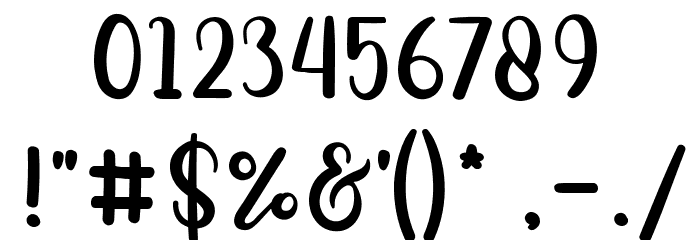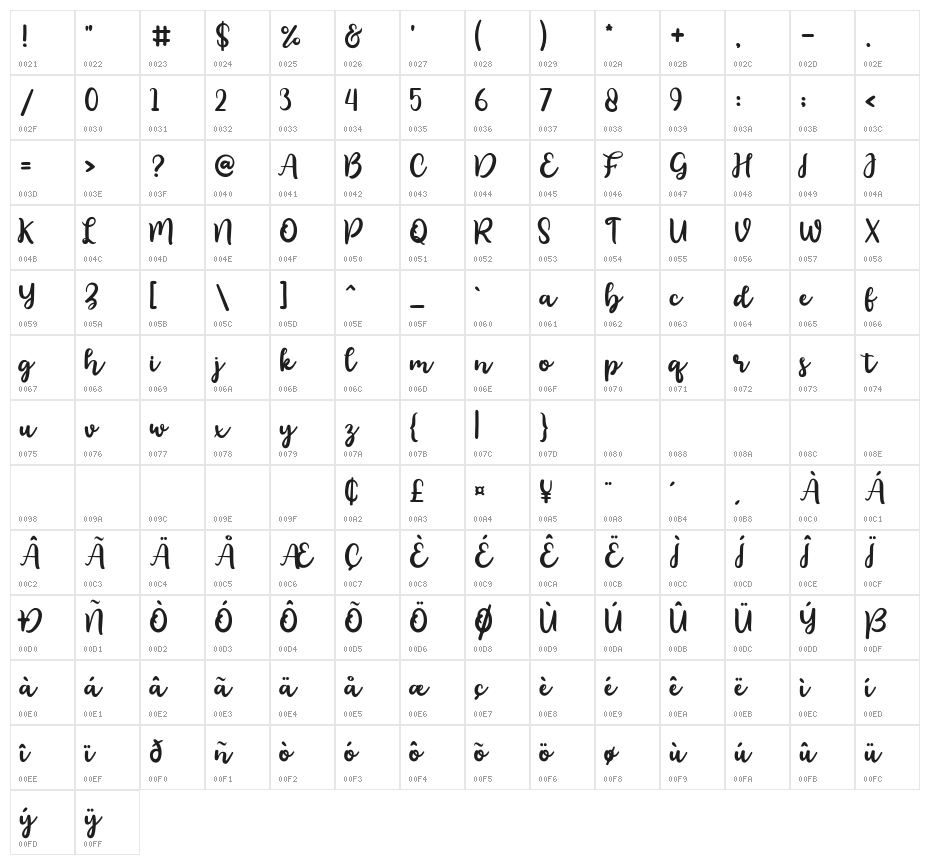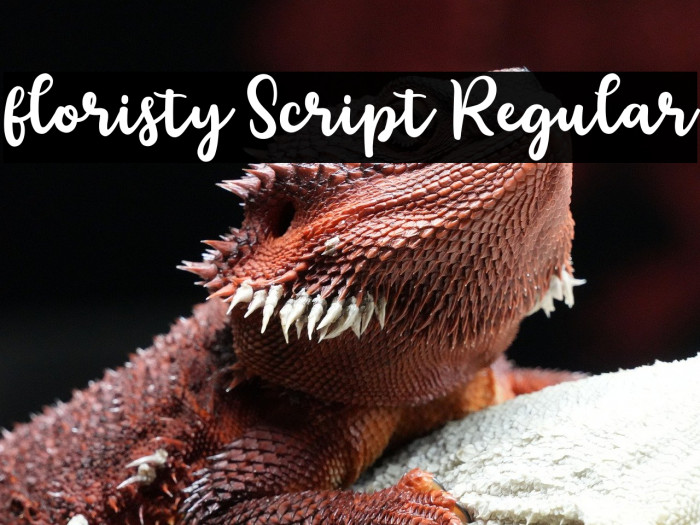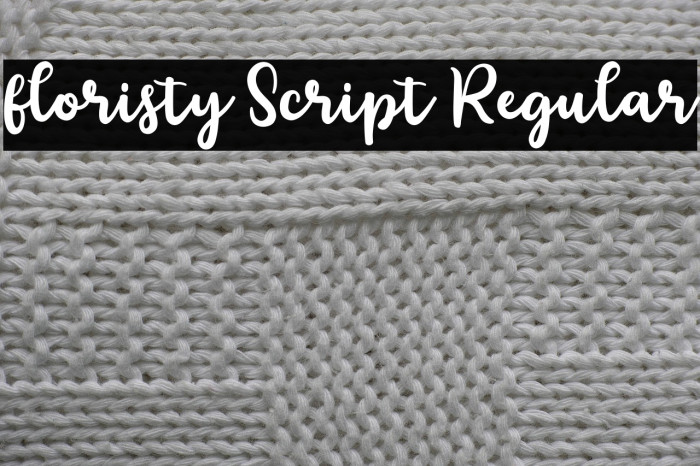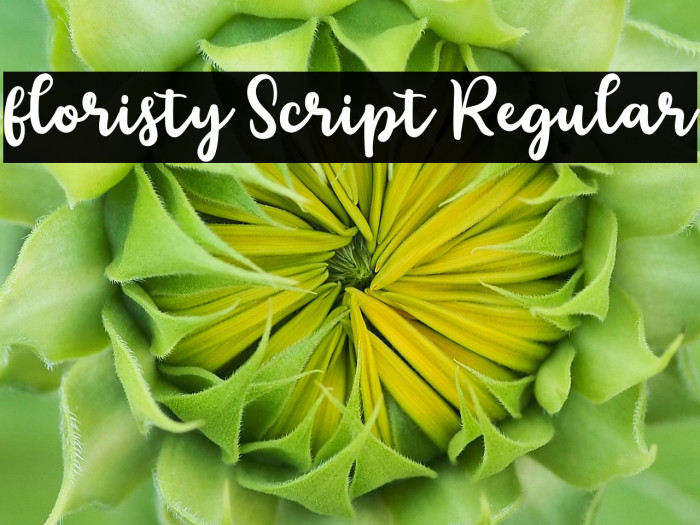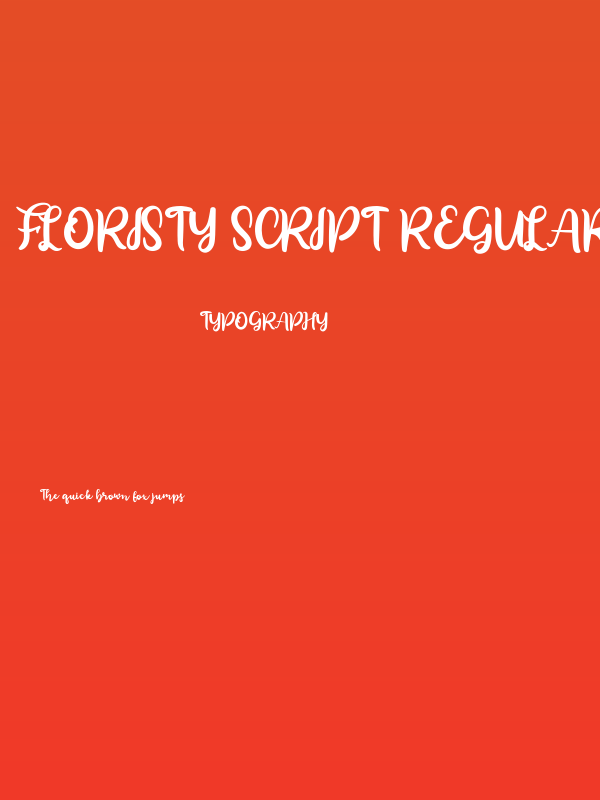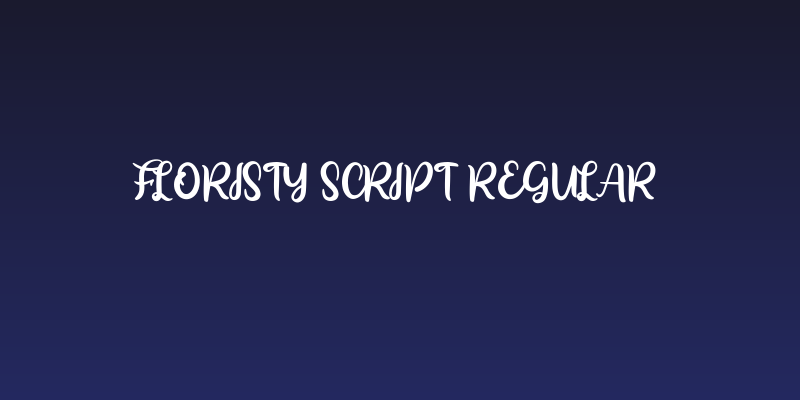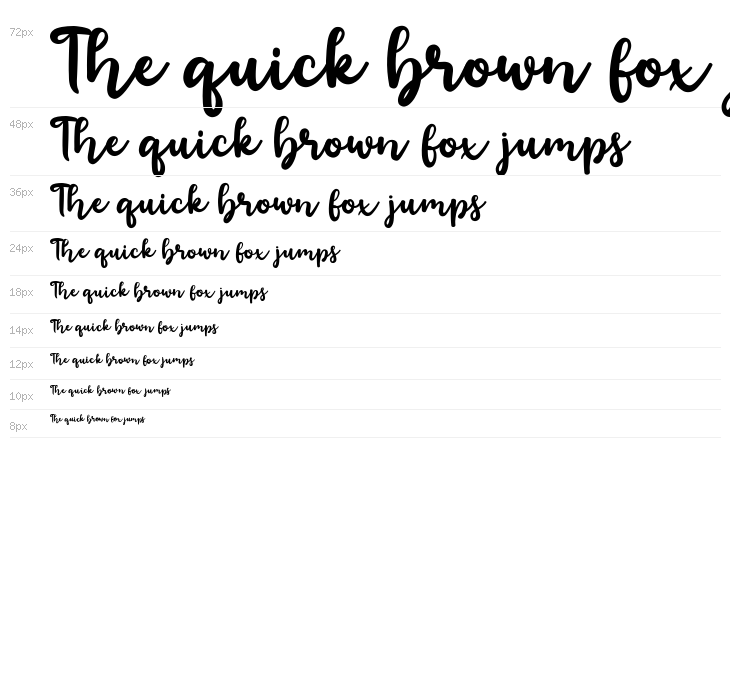
floristy Script Regular Font
floristy Script Regular Description
This script font exudes a playful and elegant charm, characterized by its flowing, cursive style. The letters are interconnected, creating a seamless and fluid appearance. The strokes are bold and consistent, offering a sense of confidence and flair. The uppercase letters are slightly more ornate, with gentle curves and loops that add a touch of sophistication. The lowercase letters maintain a balanced and harmonious look, complementing the uppercase with their smooth transitions. Numbers and special characters are crafted with the same attention to detail, ensuring a cohesive look across all elements. This font is ideal for projects that require a personal and artistic touch, such as invitations, branding, and creative designs.
| Proposed Projects | Ideal for wedding invitations, branding, greeting cards, and artistic designs. |